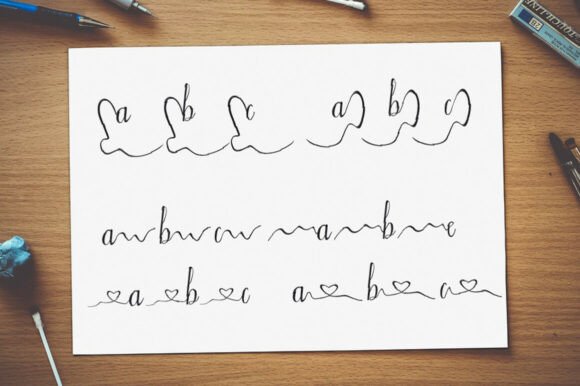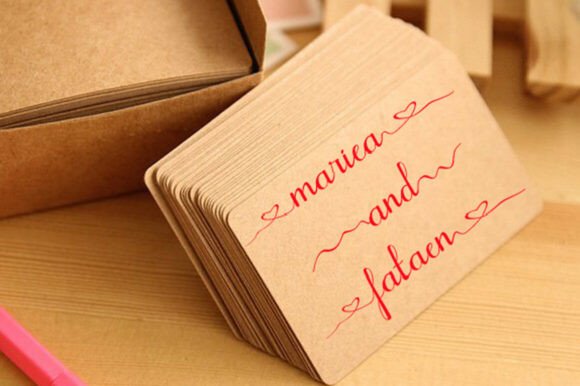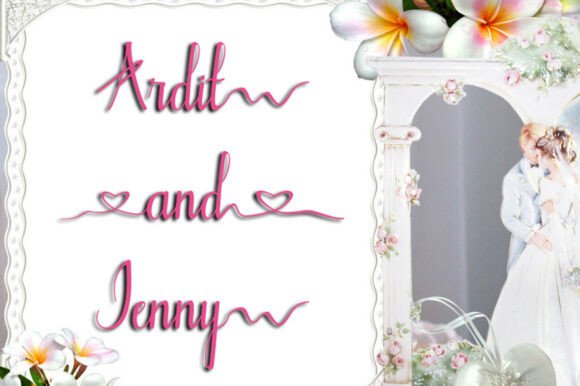
Discover the Elegance of Alone Font: A Modern Calligraphy Script
Are you a designer or crafter looking for a unique and modern font to elevate your creative projects? Look no further than the Alone Font, a beautifully designed script calligraphy font that is sure to impress. In this article, we’ll explore the features, benefits, and uses of this stunning font, and provide you with all the information you need to get started.
What is Alone Font?
Alone Font is a hand-written script calligraphy font that boasts modern and unique forms of calligraphy. The writing style is very natural, making it perfect for a wide range of creative projects. The font was designed with elegance and sophistication in mind, making it ideal for designers and crafters who want to add a touch of class to their work.
Features of Alone Font
So, what makes Alone Font so special? Here are just some of its key features:
- Standard Ligatures: Alone Font features standard ligatures, which allow you to create beautiful connections between letters.
- Stylistic Alternates: The font includes stylistic alternates, which provide you with alternative letterforms to add more variety to your text.
- Contextual Alternates: Alone Font also features contextual alternates, which allow the font to adjust to the context of the text, creating a more natural and fluid look.
- Stylistic Sets: The font includes stylistic sets, which allow you to create a range of different looks and styles.
- Swash: Alone Font also features swash characters, which add a touch of elegance and sophistication to your text.
Uses of Alone Font
So, what can you use Alone Font for? The possibilities are endless! Here are just a few ideas to get you started:
- Headings: Use Alone Font to create stunning headings for your website, blog, or marketing materials.
- Logos: The font is perfect for creating elegant and sophisticated logos for your business or brand.
- Wedding Invitations: Alone Font is ideal for creating beautiful wedding invitations, save-the-date cards, and other wedding stationery.
- T-Shirts: Use the font to create unique and stylish t-shirt designs.
- Letterhead: Alone Font is perfect for creating elegant letterhead for your business or personal correspondence.
- Signage: The font is great for creating eye-catching signage for your business or event.
- Labels: Use Alone Font to create stylish labels for your products or packaging.
- News: The font is suitable for creating newspaper articles, magazines, and other publications.
- Posters: Alone Font is perfect for creating stunning posters for your business or event.
- Badges: Use the font to create stylish badges for your business or event.
In conclusion, Alone Font is a stunning script calligraphy font that is perfect for designers and crafters looking to add a touch of elegance and sophistication to their creative projects. With its modern and unique forms of calligraphy, the font is sure to impress. Whether you’re creating headings, logos, wedding invitations, or any other type of design, Alone Font is a great choice. So why not give it a try today and see the difference it can make?